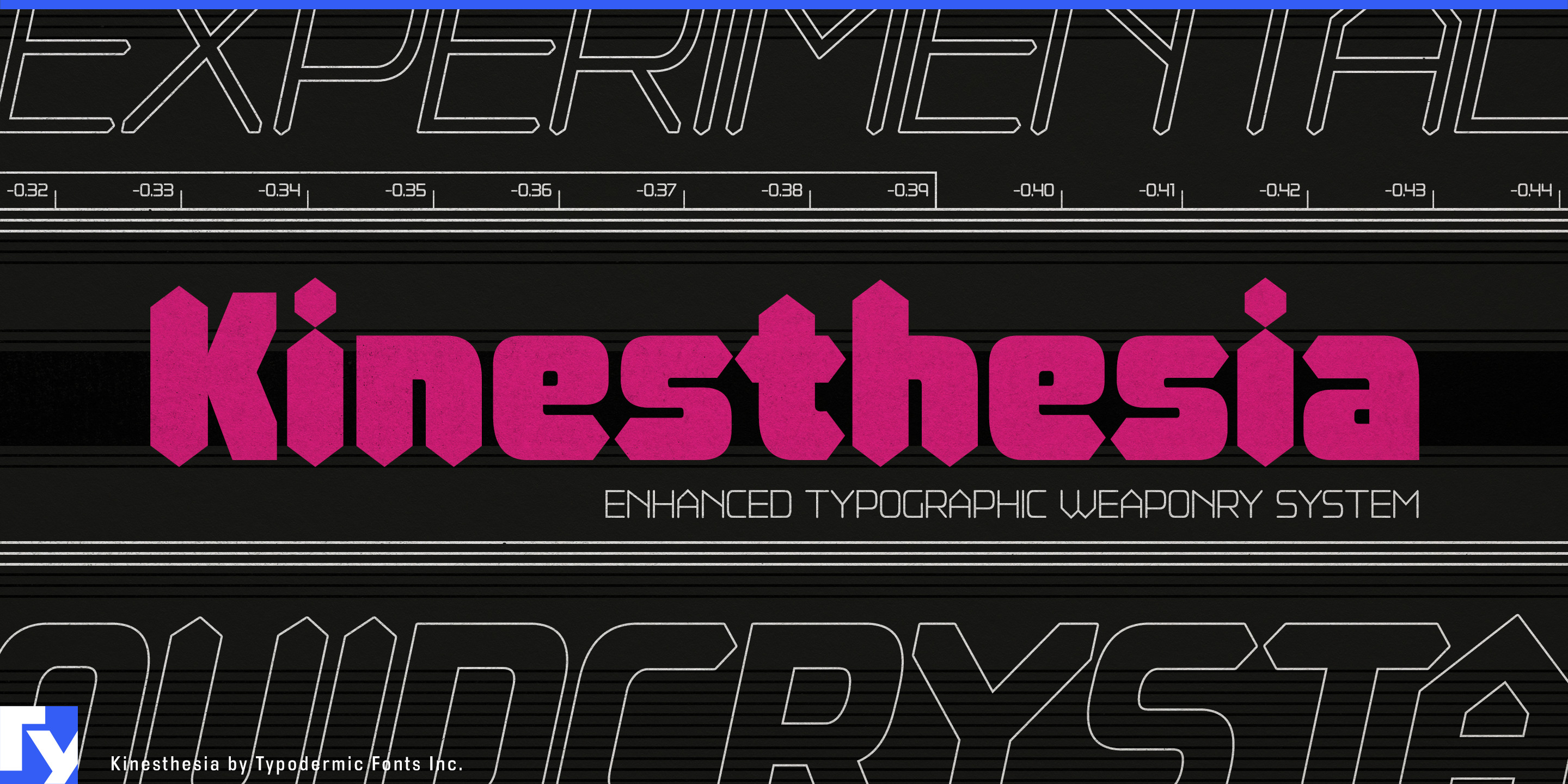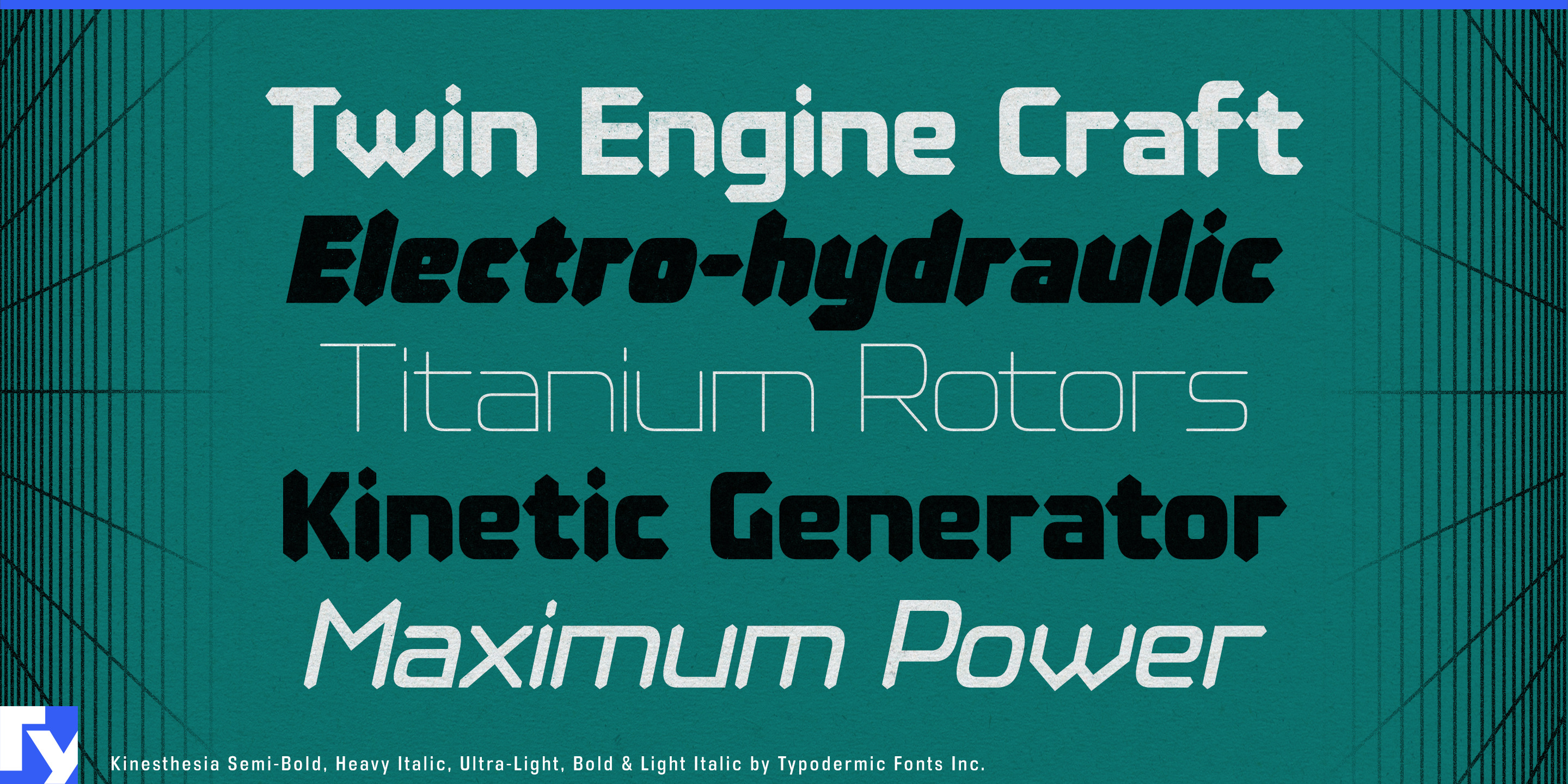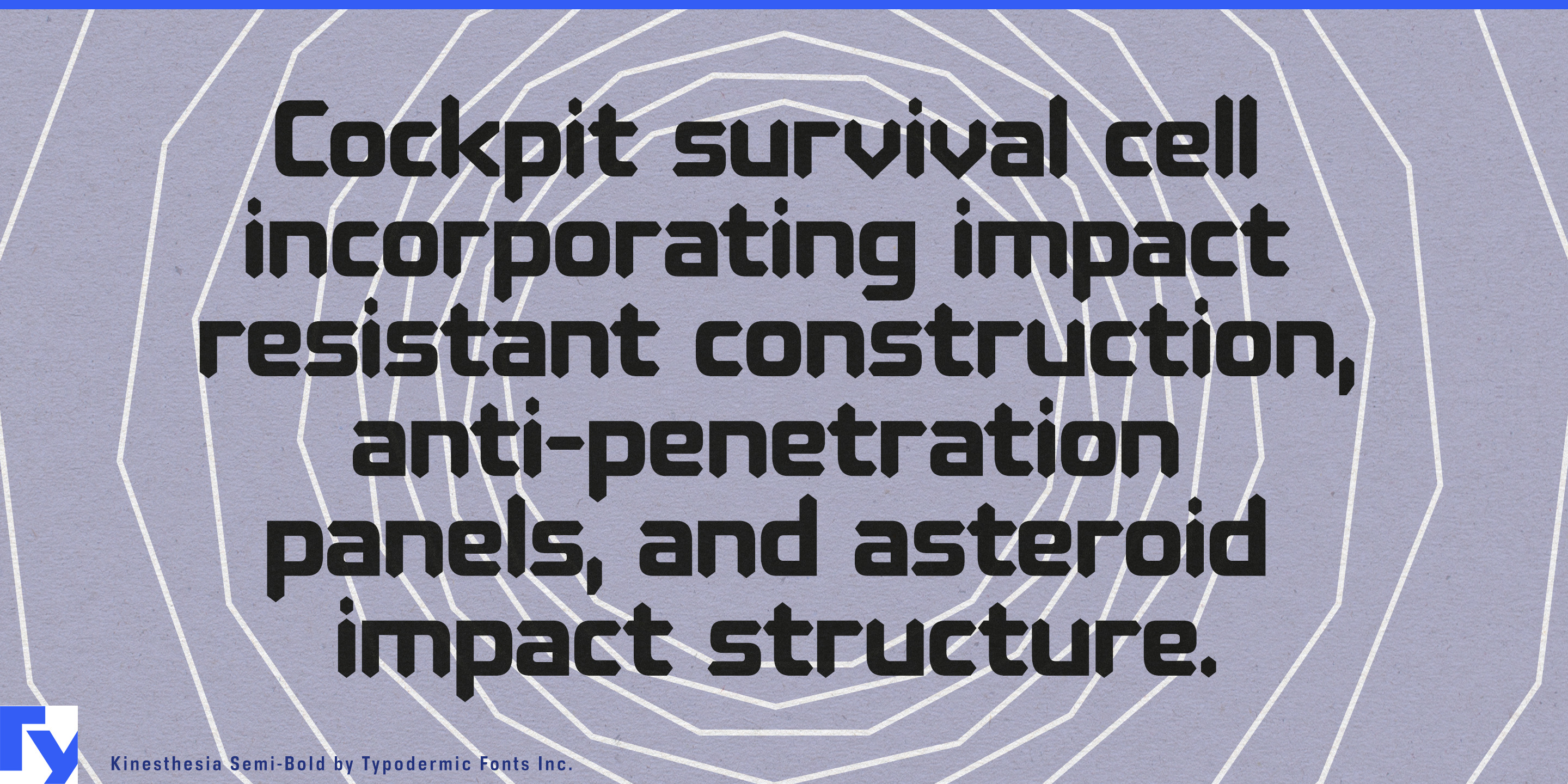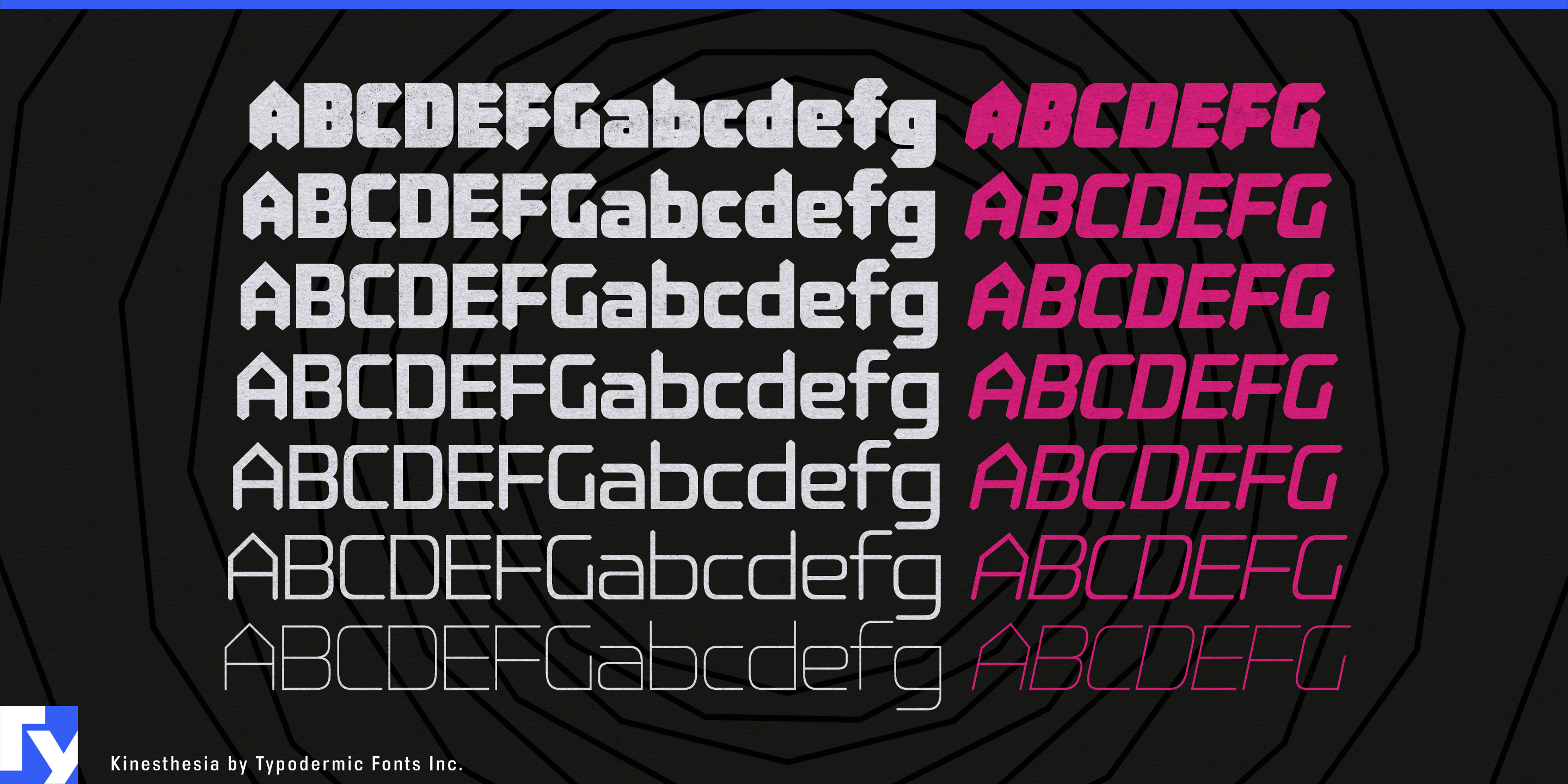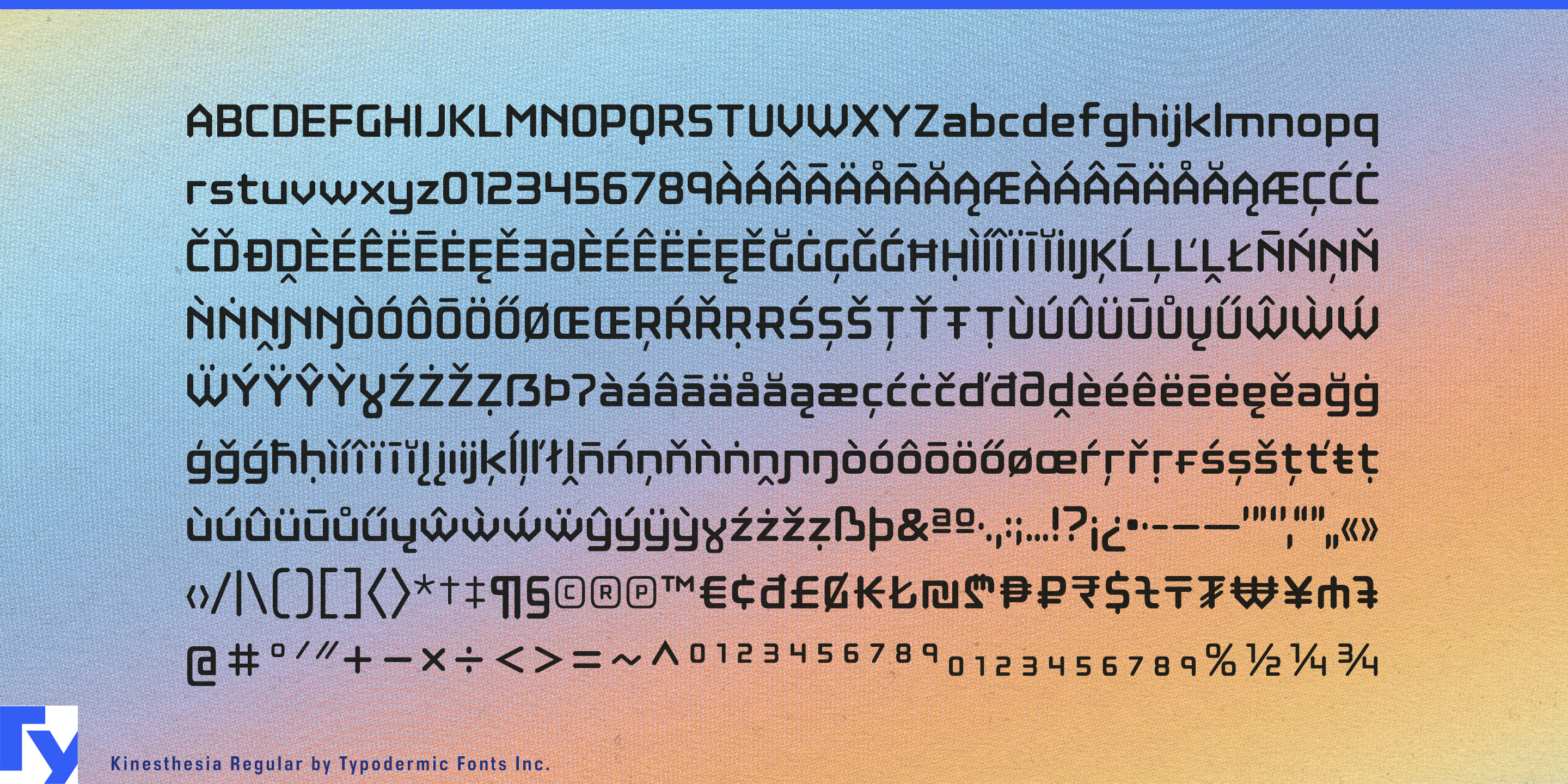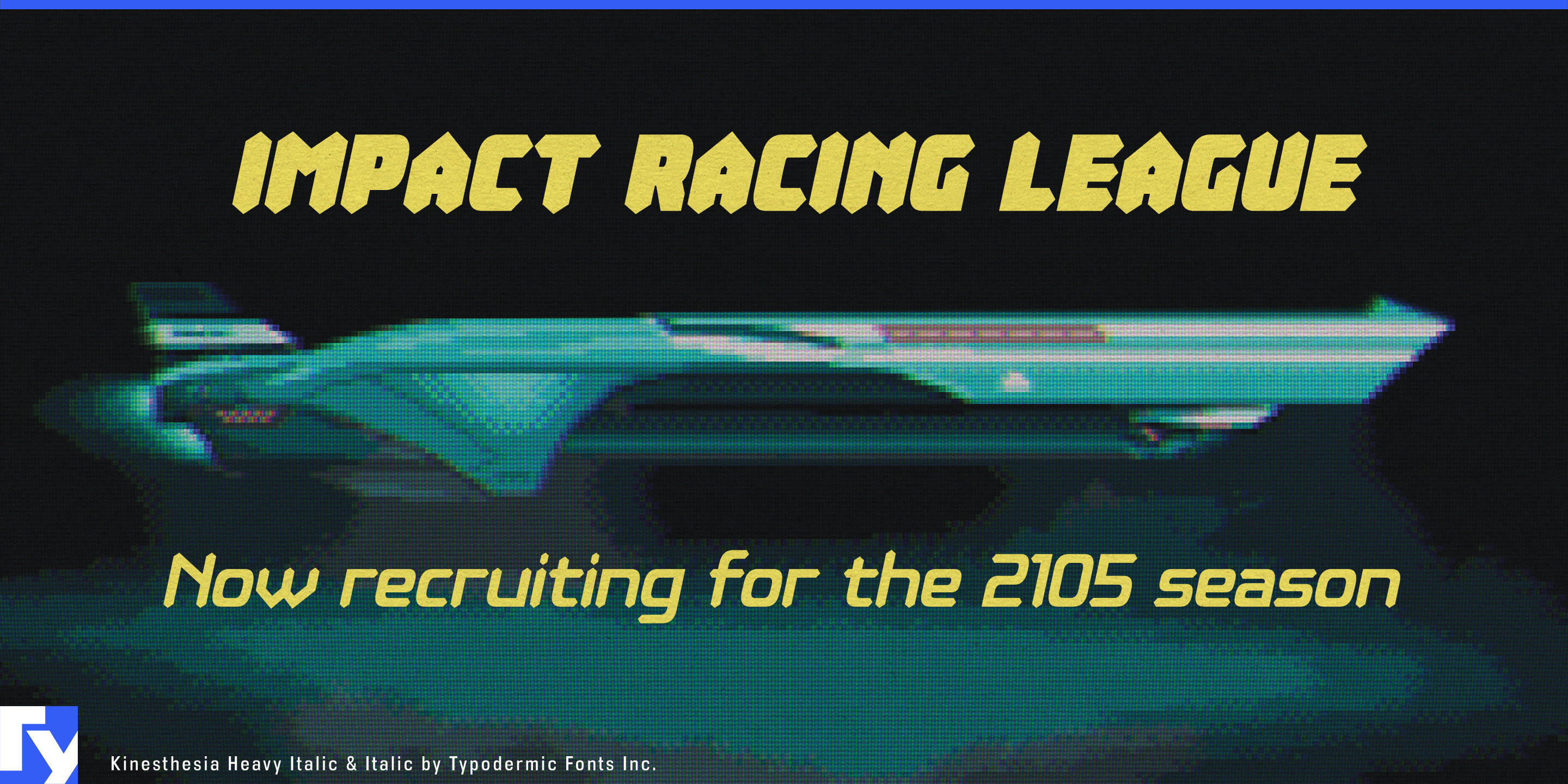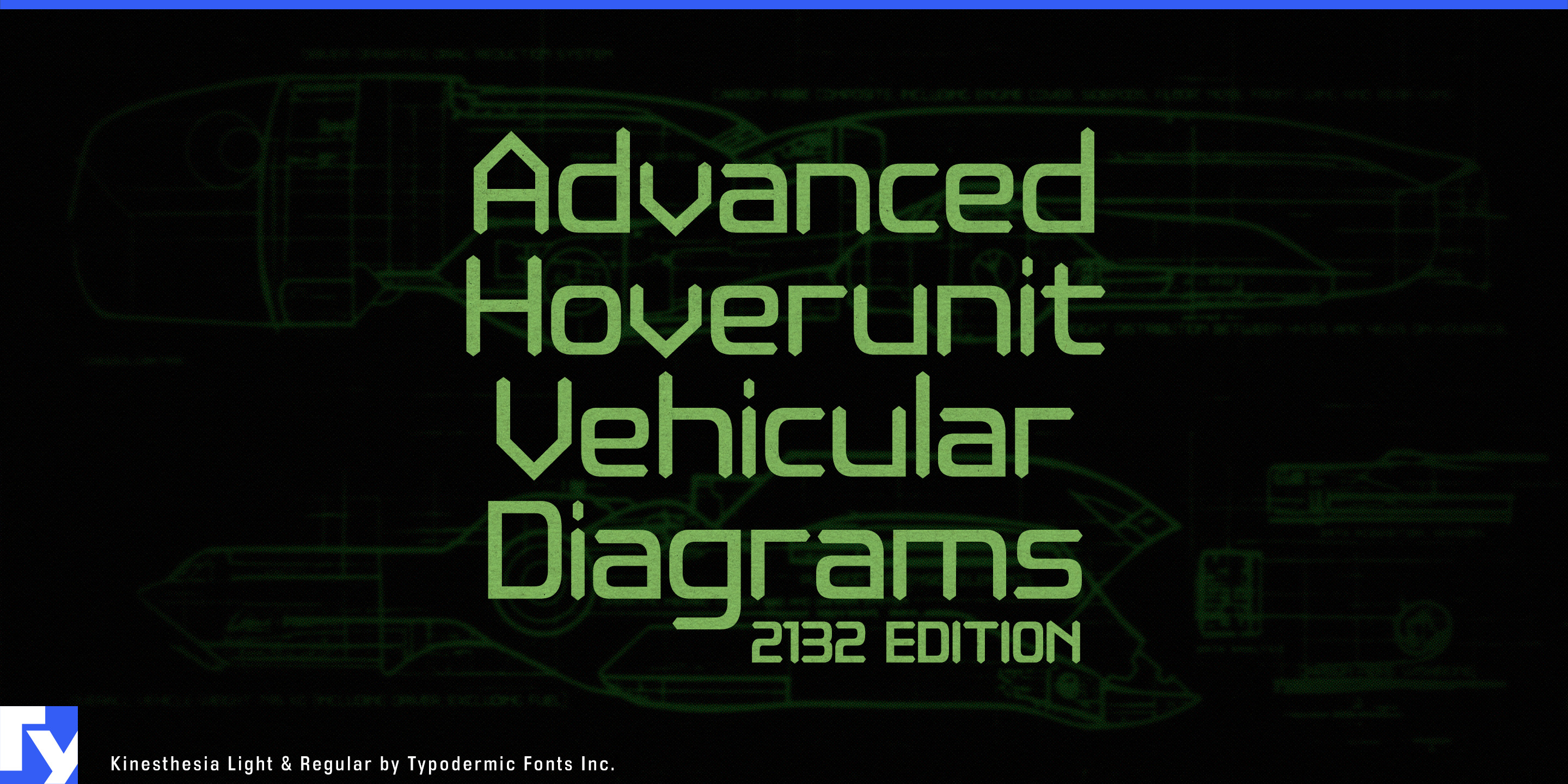
Kinesthesia
Kinesthesia rejects the tired conventions of flat or rounded stroke ends and replaces them with clean, diamond-cut terminals. This sharp, faceted detail isn’t decorative trivia—it’s a precision choice that changes the entire rhythm of a word. The result is a typeface that catches light like machined metal, carves out its space on the page, and brings engineered clarity to your message.
Every weight in the family, from Ultra-Light to Heavy, uses these terminals to create a silhouette that feels fast, focused, and contemporary. It’s a design language that resonates with high-tech branding, futuristic interfaces, esports graphics, and science-fiction packaging—anywhere your typography needs to look engineered for performance.
Kinesthesia balances this non-traditional stroke logic with versatile proportions and carefully tuned curves, making it equally at home in large headlines or precise data displays. Obliques push the sense of speed even further, while the extended symbol set—including fractions, primes, and monetary signs—keeps it fluent in technical and financial contexts.
Available in seven weights with matching obliques, Kinesthesia works across a wide range of Latin-based languages. It’s a global tool for designers who want their typography to look like it was built, not just drawn.